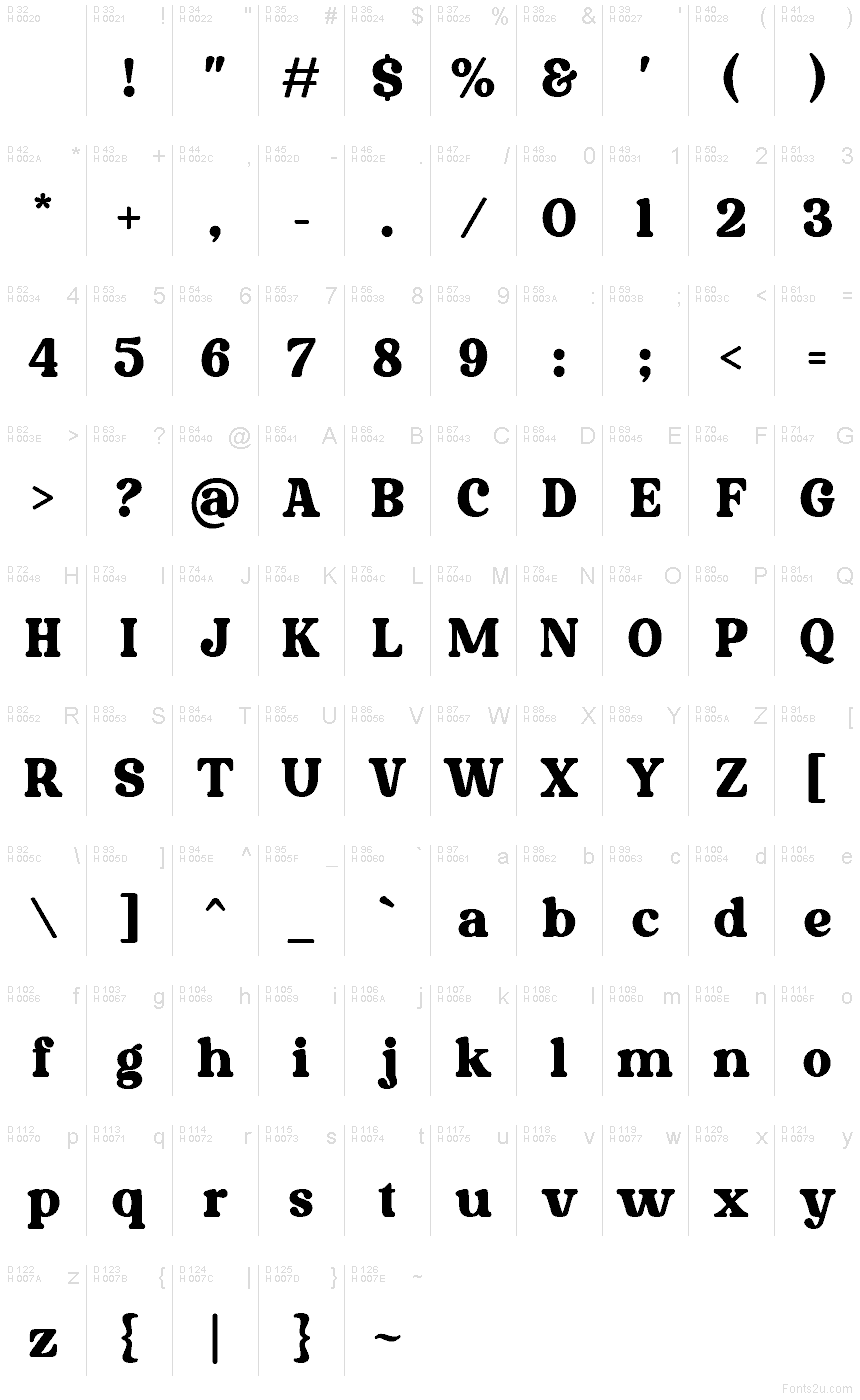
Morally Serif font by Tebaltipis Studio captures a timeless classic essence with strong presence, vintage flair, and authoritative vibe. This bold retro display typeface artistically elevates title headings thanks to its intricate base-ending combinations inside pristine typography. With that in mind, readers’ eyes will be drawn to your text without distraction.
Adopt this free serif font in designs where text is the leading element. Some great examples include magazines, newspapers, flyers, concert posters, company profiles and credentials. Slogans and short messages are usually the best ways to use it both online or offline. Whether you’re seeking for inspiration or building a new work of art from scratch, integrating a new display font can make the entire process much smoother than you previously thought!